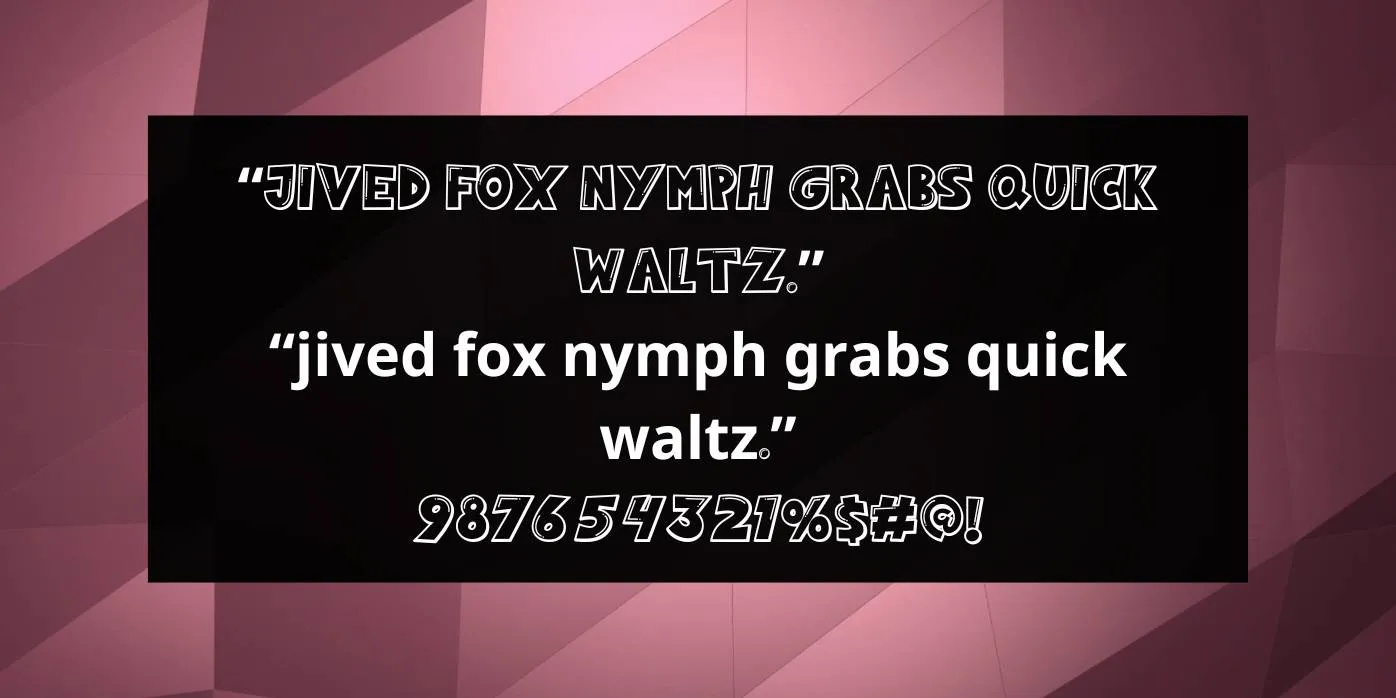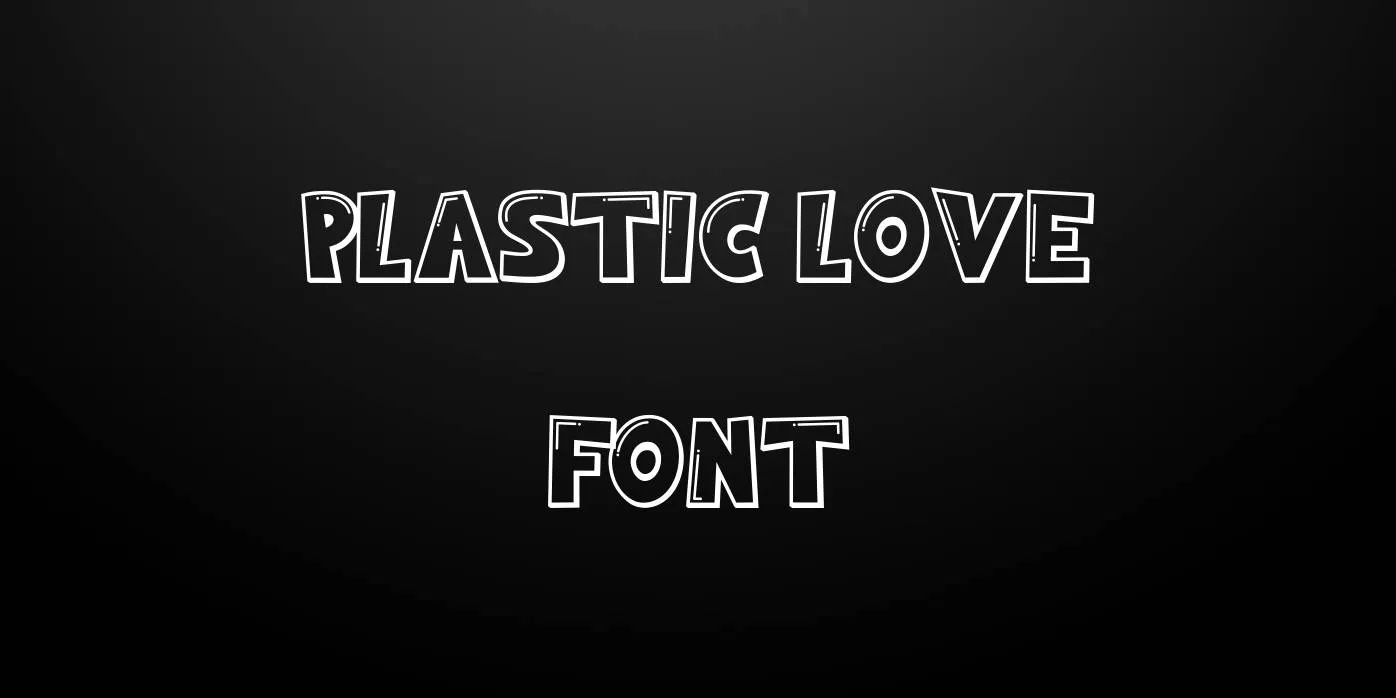
Plastic Love Font
Plastic Love Font is a cartoon-type-looking typeface that was designed by Vable Studio. It has an interesting character that has properties like boldness, high readability, and hollowness. The characters for this typeface support digits, capital letters, lowercase letters, special letters, and punctuation. This font style supports many international languages.